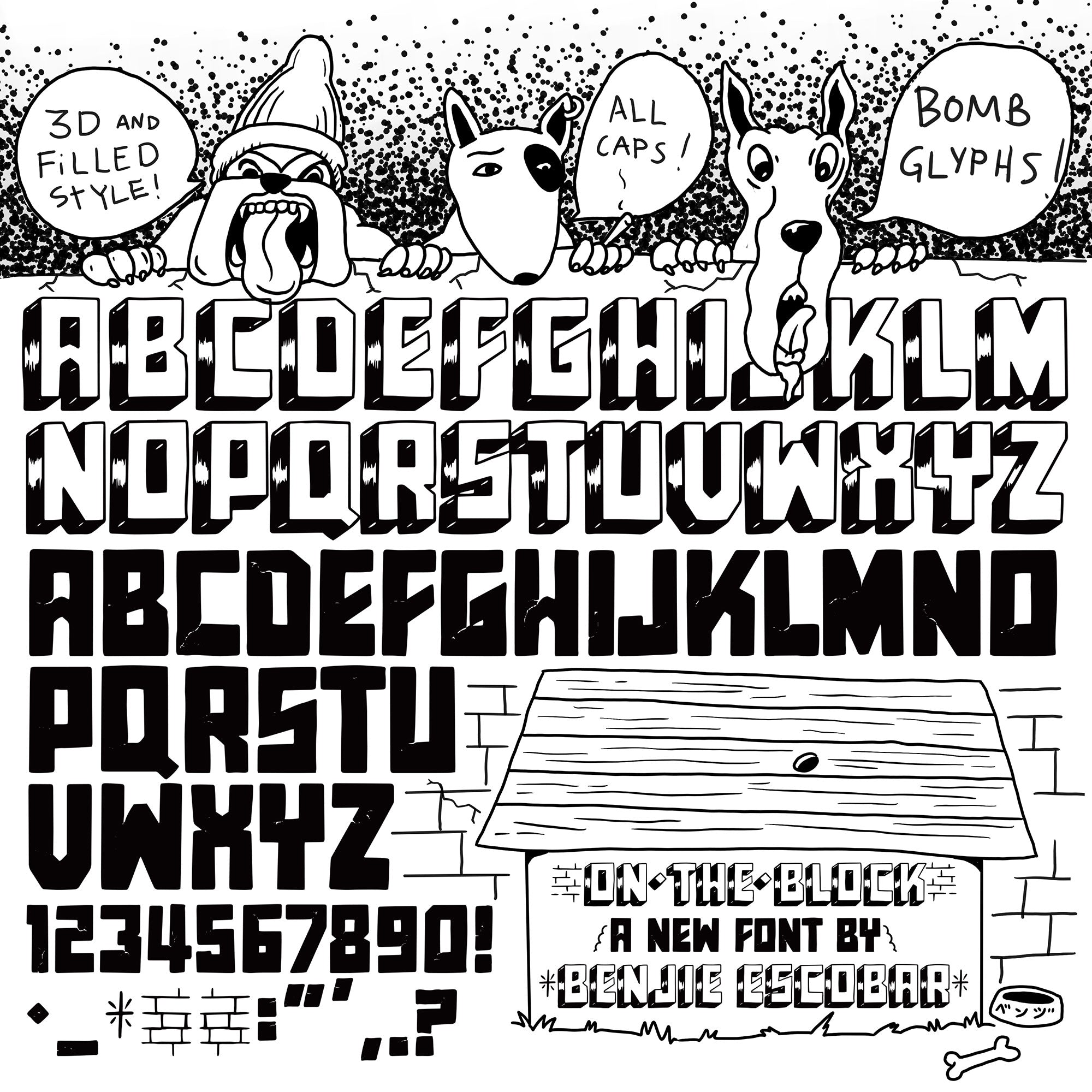
On The Block (Font)
On The Block is a headline font that comes in 2 styles (3d and filled) based off classic Ben Hurr style block lettering. Features custom glyphs!